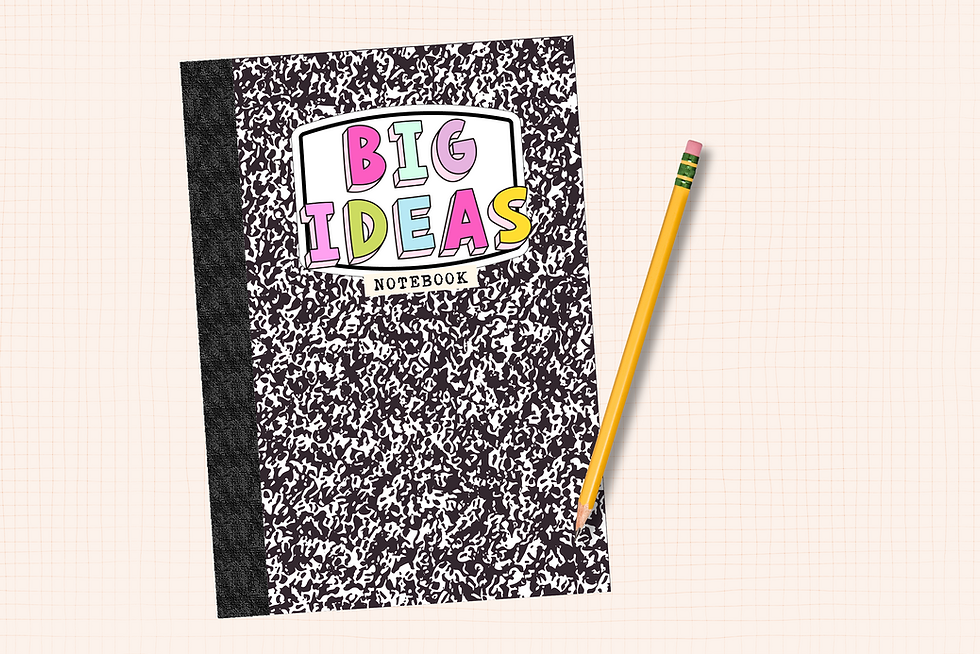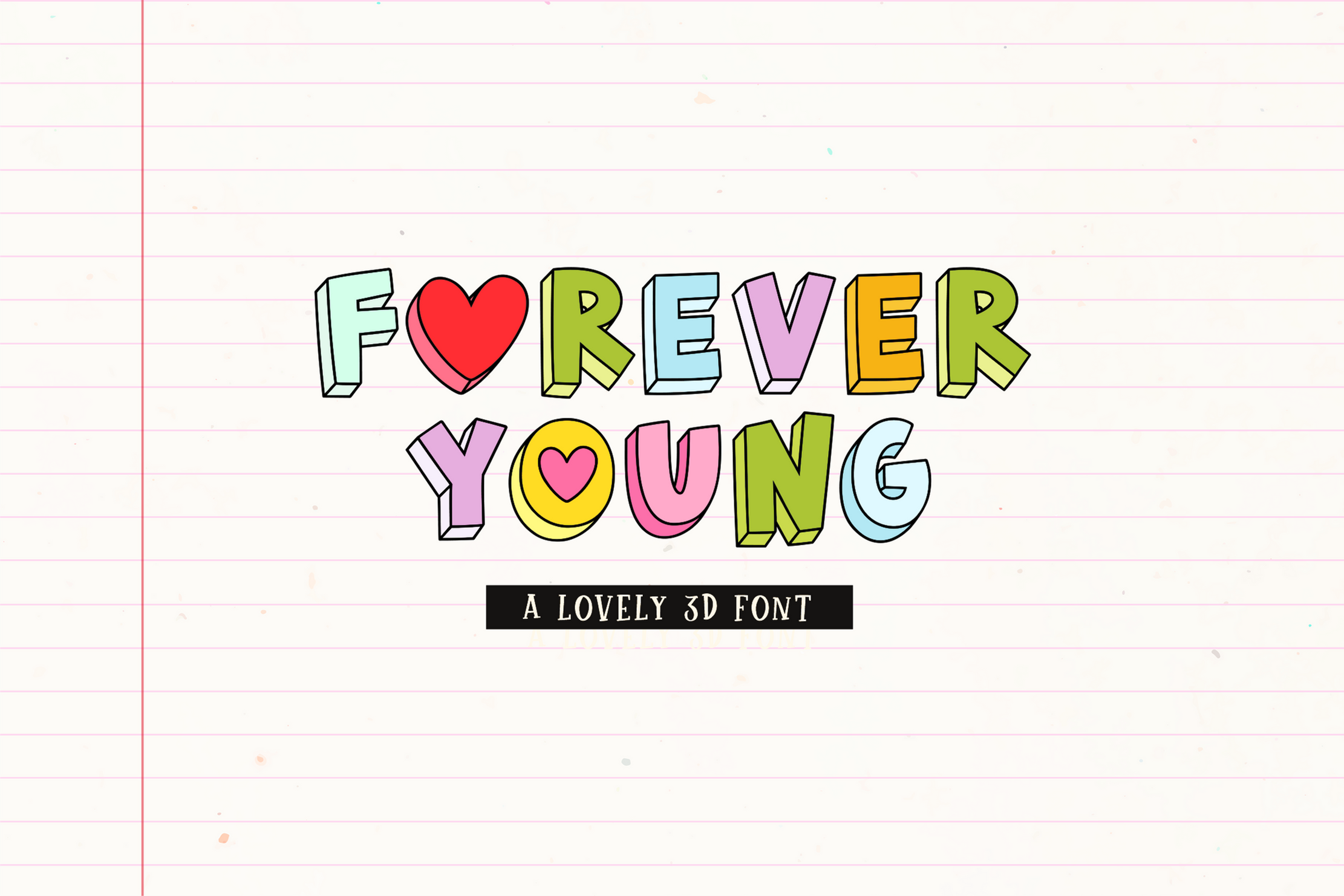
FOREVER YOUNG is a chunky and cute 3D font.
β Most accent characters included
β· Layer the fonts to get cooler designs.
β· Use the 5 symbols included to make cute compositions.
- Greater > β Star
- Less < β Star/shine
- Backlash \ β Mini heart
- Bar | β Circled heart
- Lowercase o β Big heart
- Logical not Β¬ β Flower